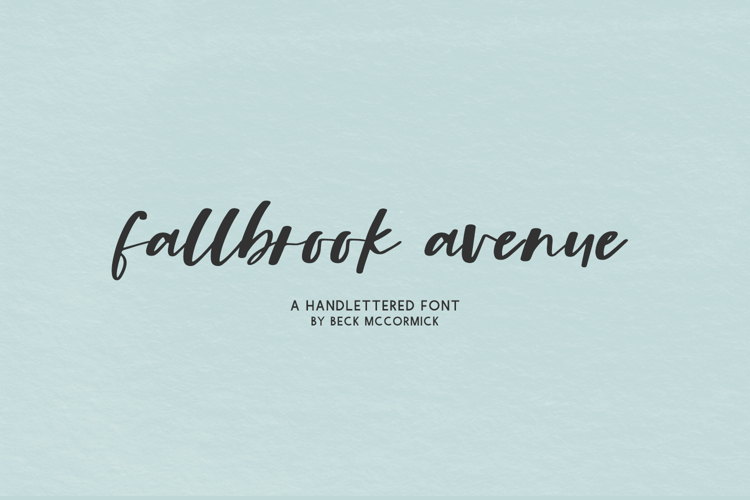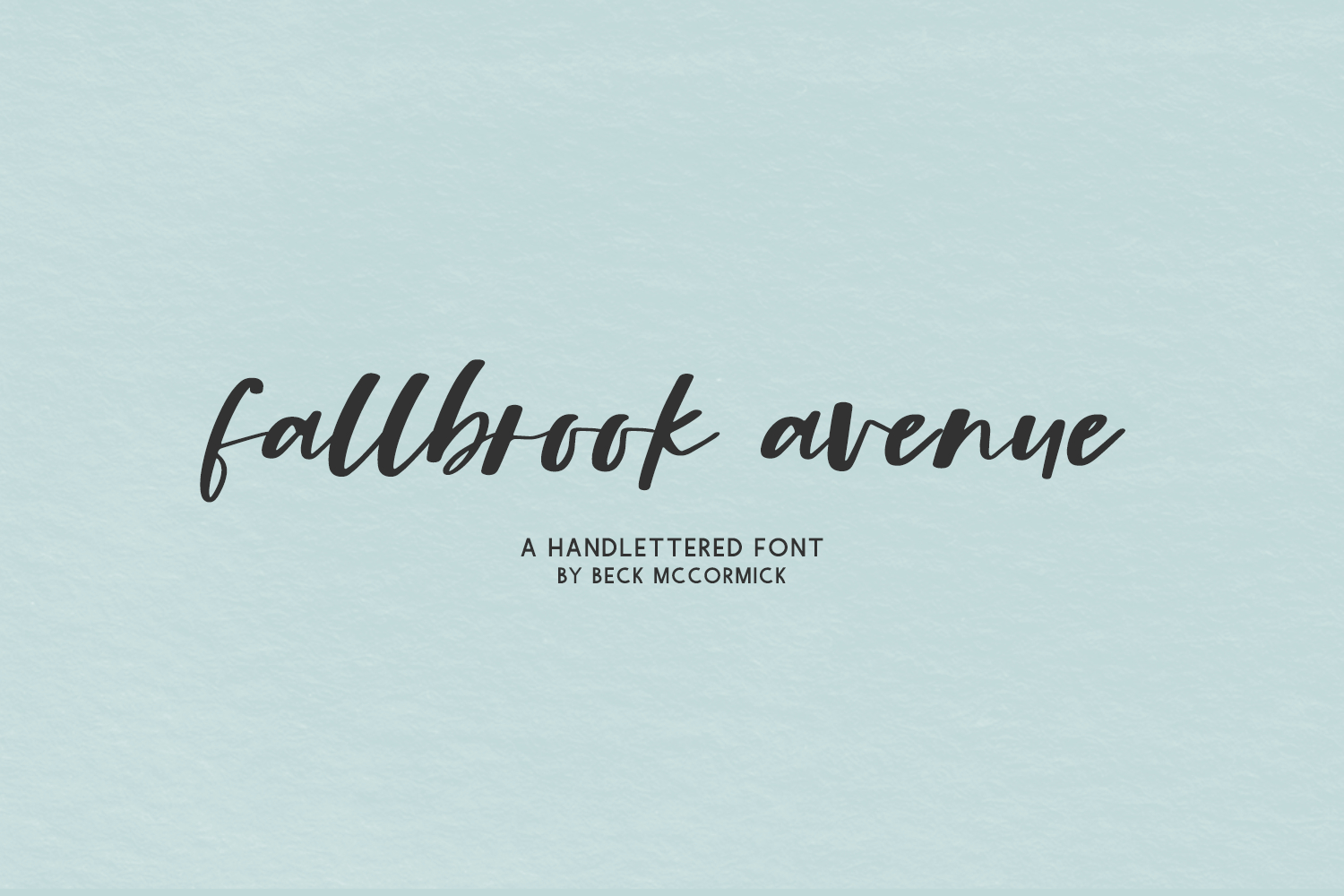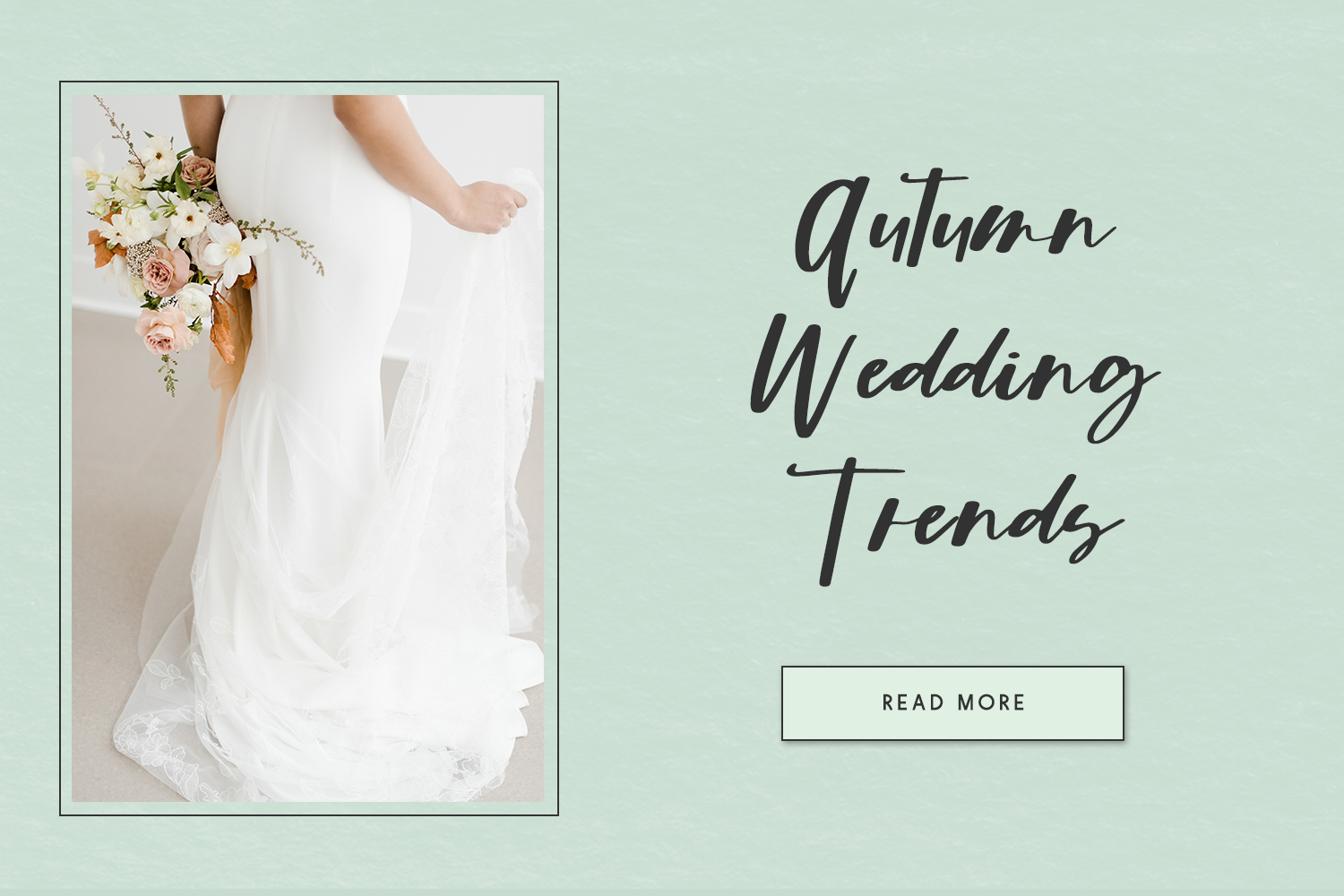
Fallbrook Script
Introducing Fallbrook Avenue, a cute handlettered modern calligraphy script.
Fallbrook Avenue is best for:
- feminine, crafty projects with your Cricut or Silhouette machine, or your SVG design business
- wedding invitations, wedding favors, or wedding decor
- farmhouse decor and crafts
- digital planners & apps like Goodnotes
- website design + website accents, blog design
- feminine graphic tee shirt design & other apparel